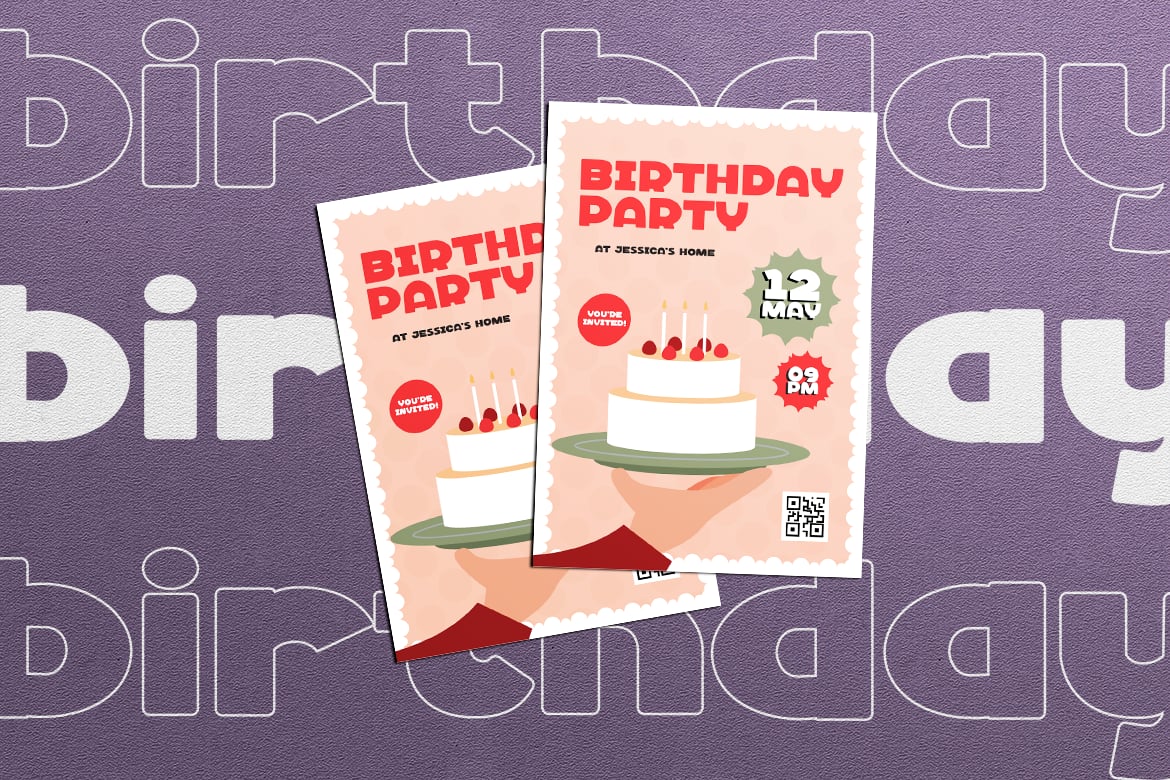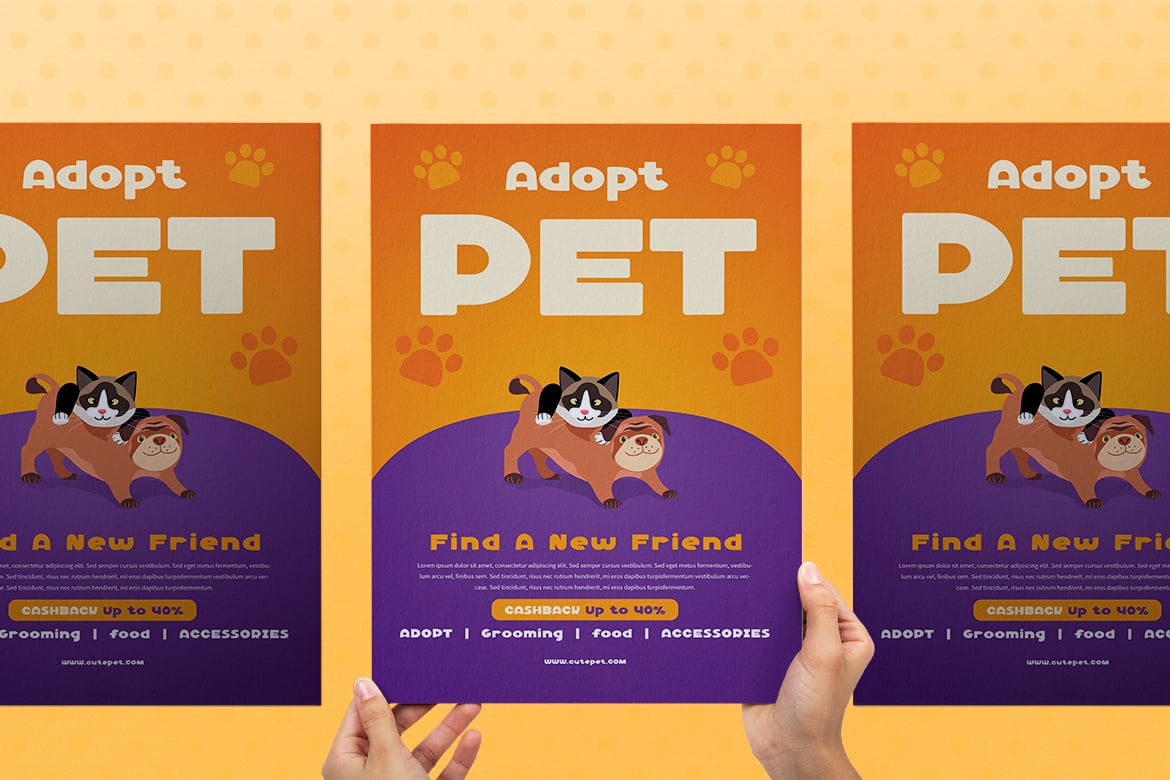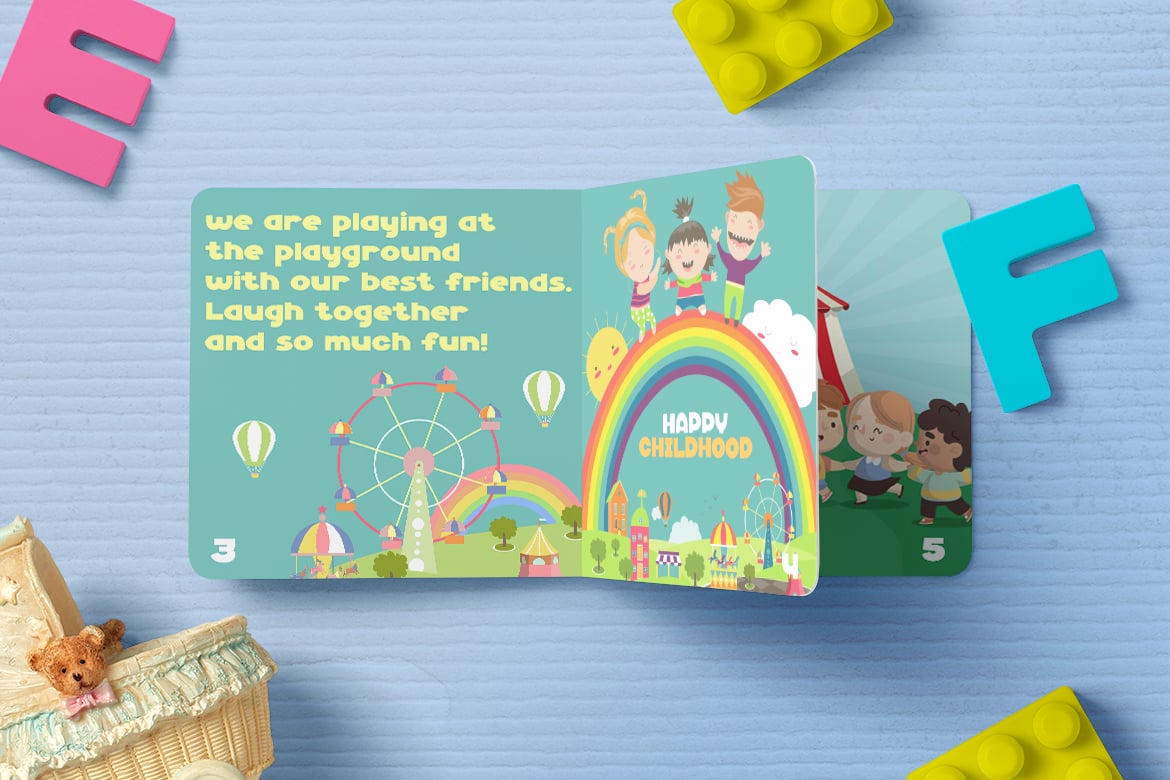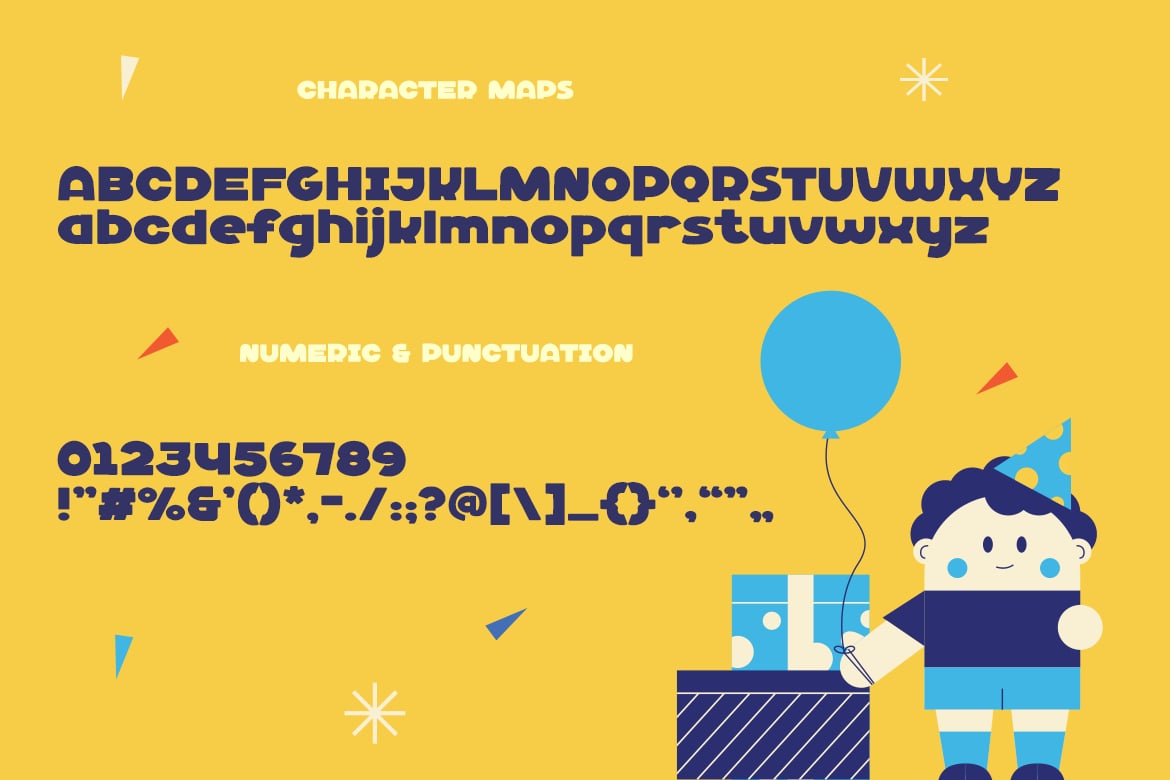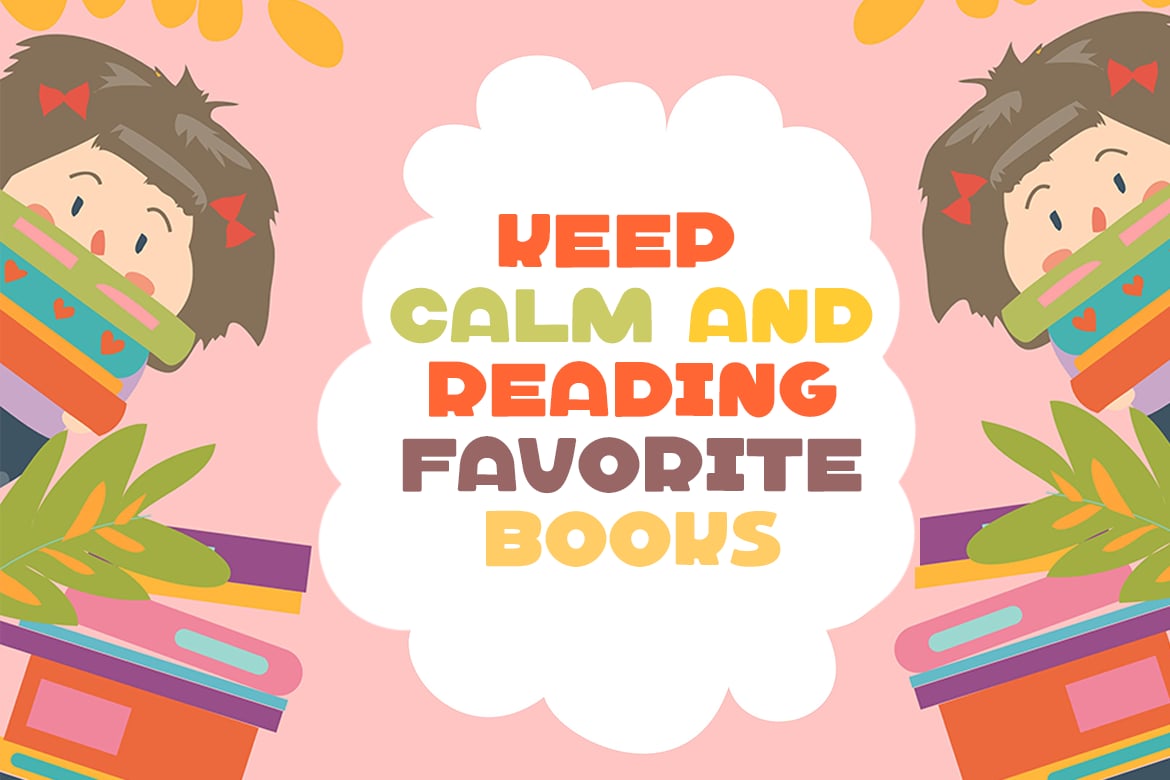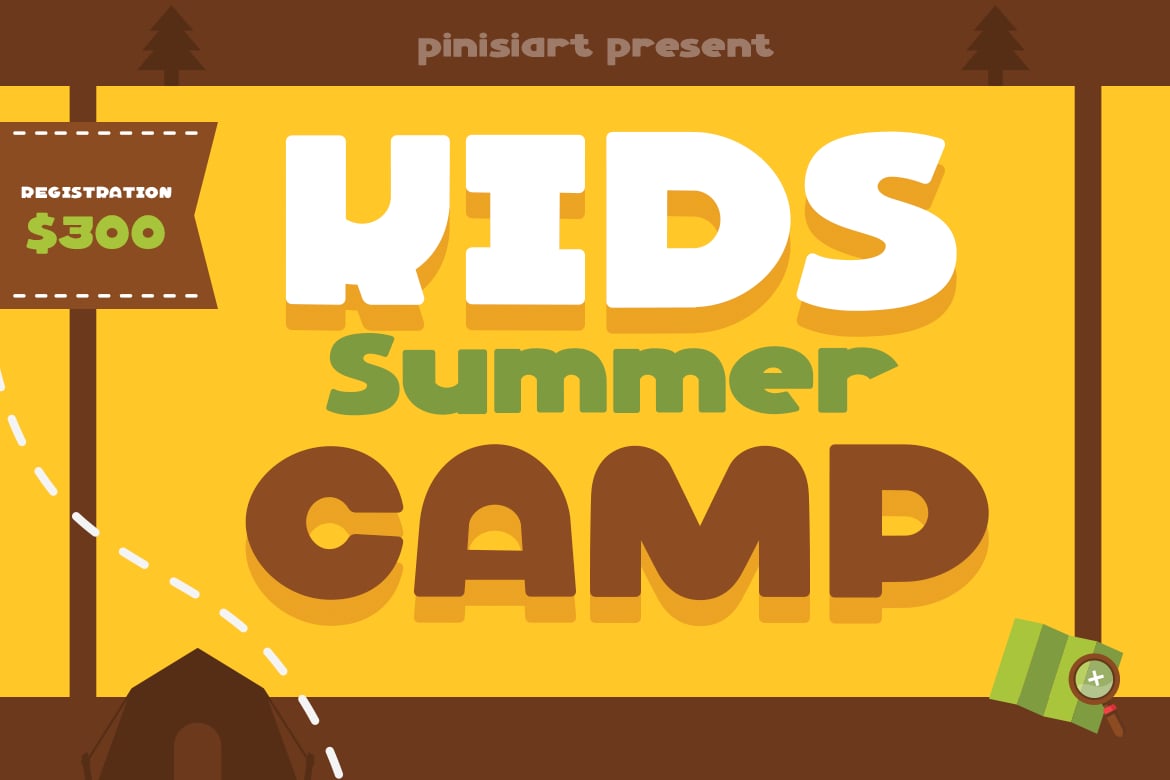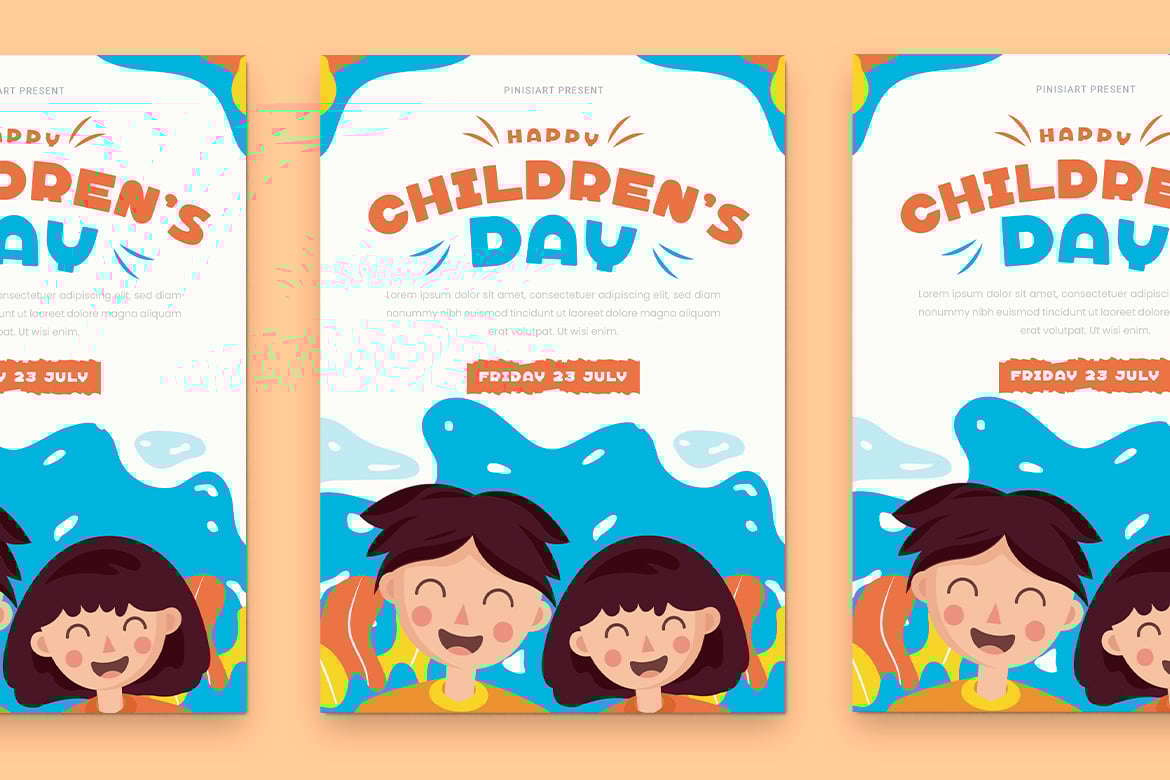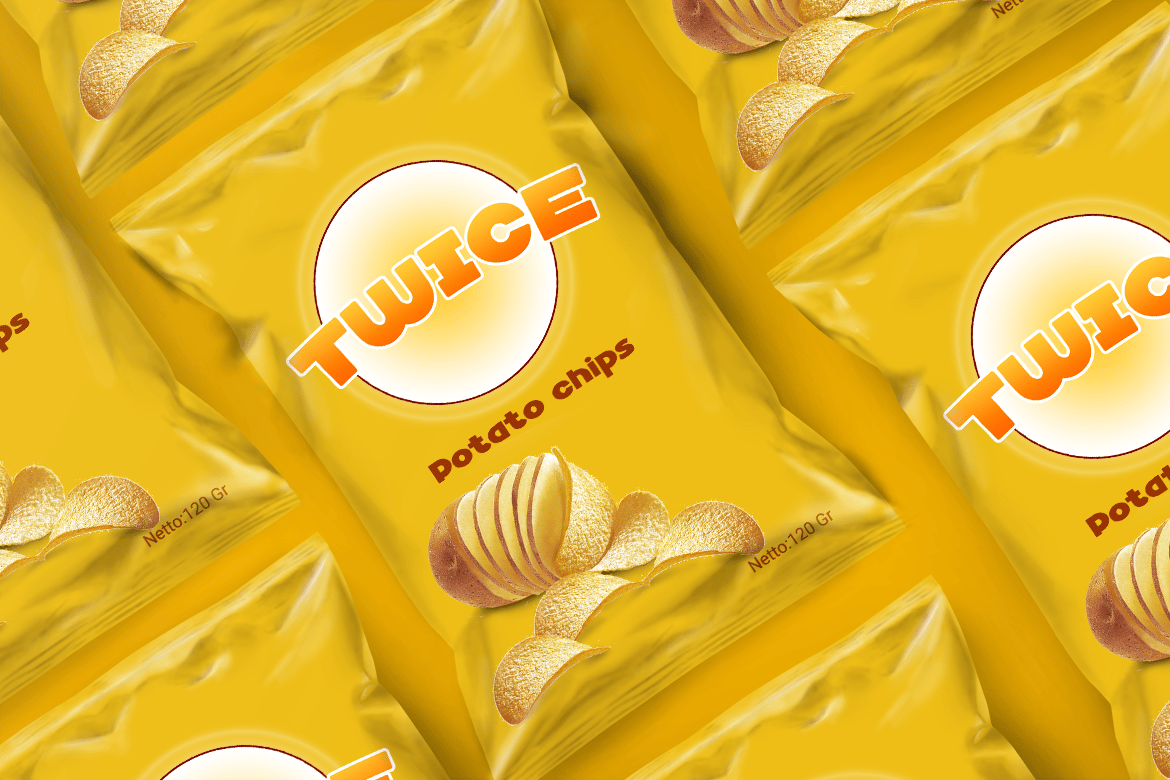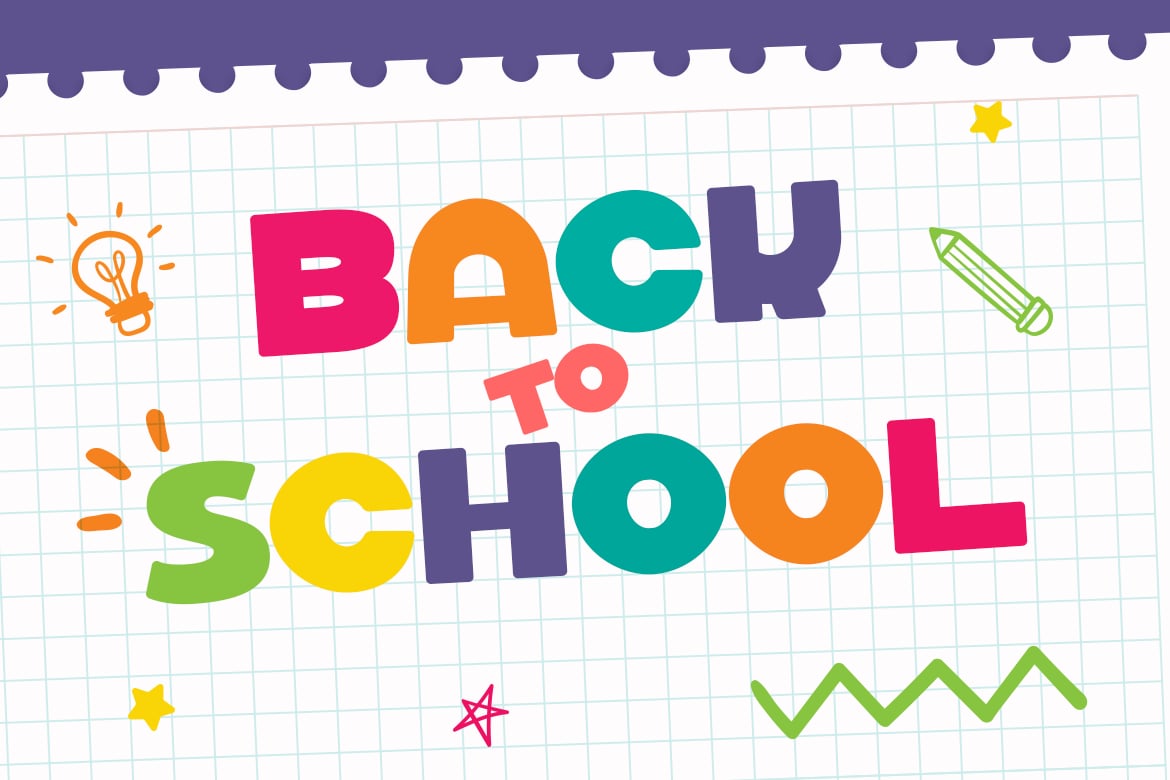
Mint Candy – Kids Display Font
Looking for a fun and playful font that will delight kids and adults alike? Meet Mint Candy – the perfect display font for children’s projects, whether you’re creating materials for school or sharing content on social media.
With its whimsical shapes and bold, chunky letters, Mint Candy is the ultimate cute and fun font. Its rounded edges and playful curves give it a distinct personality that will make any text stand out, while its legibility ensures that it’s easy to read for young readers.
Mint Candy is the ideal font for creating eye-catching headlines, posters, and flyers. Its versatile design also makes it perfect for social media platforms like Instagram and Youtube, where you can use it to add a touch of fun to your posts and videos.
But Mint Candy is more than just a cute font – it’s also a great tool for teaching. Its child-friendly design makes it perfect for creating educational materials, such as worksheets, flashcards, and posters. With its bold and legible letters, it’s an excellent choice for young students who are just learning to read.
Whether you’re a teacher, a parent, or a content creator, Mint Candy is the perfect font for bringing a touch of fun and playfulness to your projects. Add this fun children’s display font to your collection today and create designs that are sure to delight both kids and adults alike.